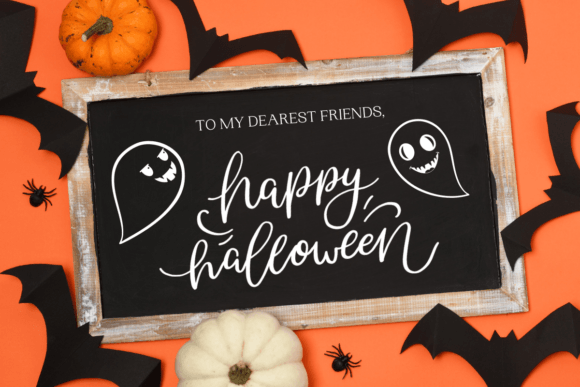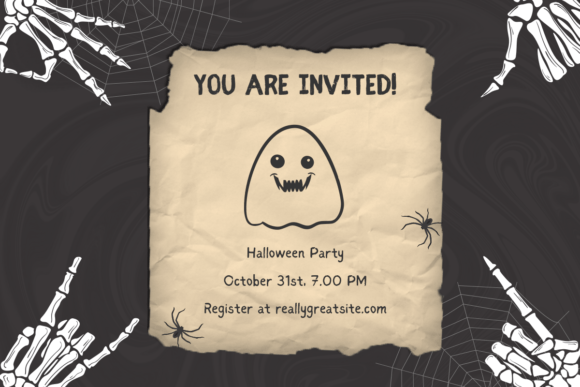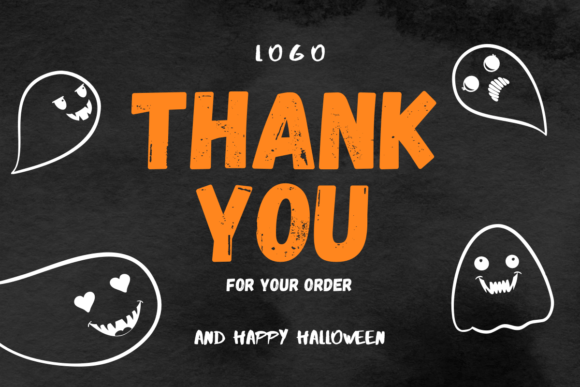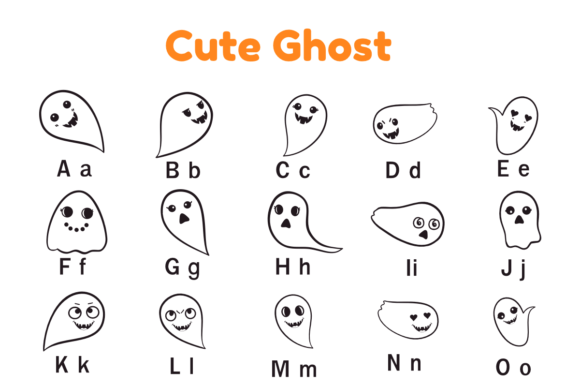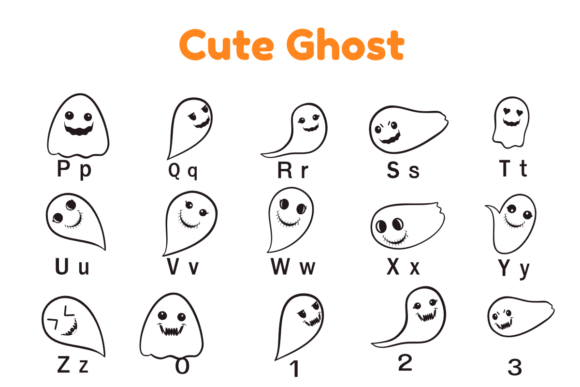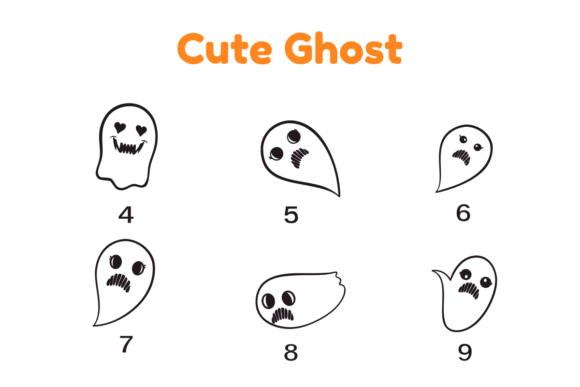
Cute Ghost Font: The Spookiest Addition to Your Design Collection
Are you ready to add a touch of Halloween magic to your creative projects? Look no further than the Cute Ghost Font, a delightful dingbat font that brings a sketch-style theme to your designs. This adorable font is perfect for a wide range of creative endeavors, from wedding invitations to DIY crafts, decorations, logos, and so much more.
What is Cute Ghost Font?
Cute Ghost Font is a unique dingbat font that features a charming, hand-sketched design. The font is filled with a variety of Halloween-themed elements, including ghosts, bats, pumpkins, and more. Each character is carefully crafted to bring a playful and spooky touch to your designs. Whether you’re a designer, crafter, or DIY enthusiast, this font is sure to become a favorite in your collection.
Uses for Cute Ghost Font
The versatility of Cute Ghost Font is one of its most appealing features. Here are just a few ideas for how you can use this font in your creative projects:
• Wedding Invitations: Add a touch of whimsy and romance to your wedding invitations with Cute Ghost Font. You can use the font to create custom illustrations, headers, and even entire phrases.
• DIY Crafts: Cute Ghost Font is perfect for a variety of DIY crafts, including Halloween decorations, gift tags, and cards. You can use the font to add a personal touch to your creations.
• Decorations: Use Cute Ghost Font to create custom signs, banners, and decorations for your home or office. The font is perfect for adding a spooky touch to your decor.
• Logos: Cute Ghost Font can also be used to create custom logos for your business or brand. The font’s unique design makes it perfect for businesses that want to stand out from the crowd.
Benefits of Using Cute Ghost Font
There are many benefits to using Cute Ghost Font in your creative projects. Here are just a few:
• Unique Design: Cute Ghost Font features a unique, hand-sketched design that will set your projects apart from the crowd.
• Versatility: The font can be used in a wide range of creative projects, from wedding invitations to DIY crafts.
• Halloween Theme: The font’s Halloween theme makes it perfect for seasonal projects and designs.
Font Name Cute Ghost Font
Author Nun Sukhwan
Cute Ghost Font is a unique and versatile dingbat font that is perfect for a wide range of creative projects. With its charming, hand-sketched design and Halloween theme, this font is sure to become a favorite in your collection. Whether you’re a designer, crafter, or DIY enthusiast, Cute Ghost Font is a great addition to your design toolkit.